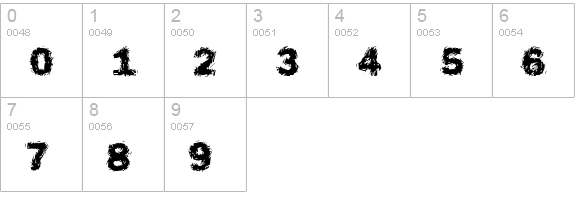
Funky16-Bold is a strong, high-contrast variant in the Funky16 typeface family \xE2\x80\x94 well suited to headlines, attention-grabbing titles, and strong calls-to-action.
Funky16-Bold font is a unique and eye-catching display font that will add a touch of fun and personality to any project. With its bold and playful design, this font is perfect for making a statement and standing out from the crowd. Whether you're designing a poster, logo, or any other creative project, Funky16-Bold font is sure to make a lasting impression. Best of all, Funky16-Bold font is available for free download at FontsMarket.com. This means you can easily access this stylish font and use it in your designs without any cost. Don't miss out on the opportunity to add a funky flair to your projects with Funky16-Bold font - download it today and let your creativity shine!